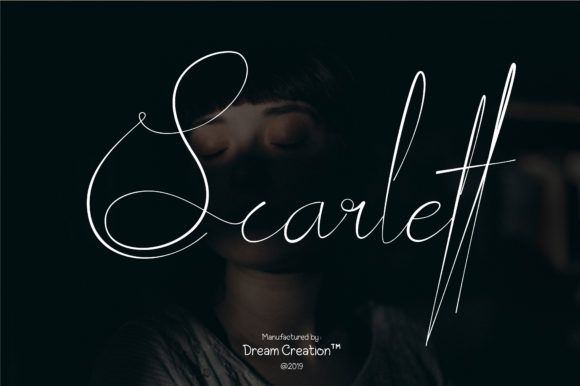
Scarlett Font
About Scarlett Font
The Scarlett is an elegant font. It has a classy and luxurious feel and is perfect for adding an upscale and chic look to your branding names.